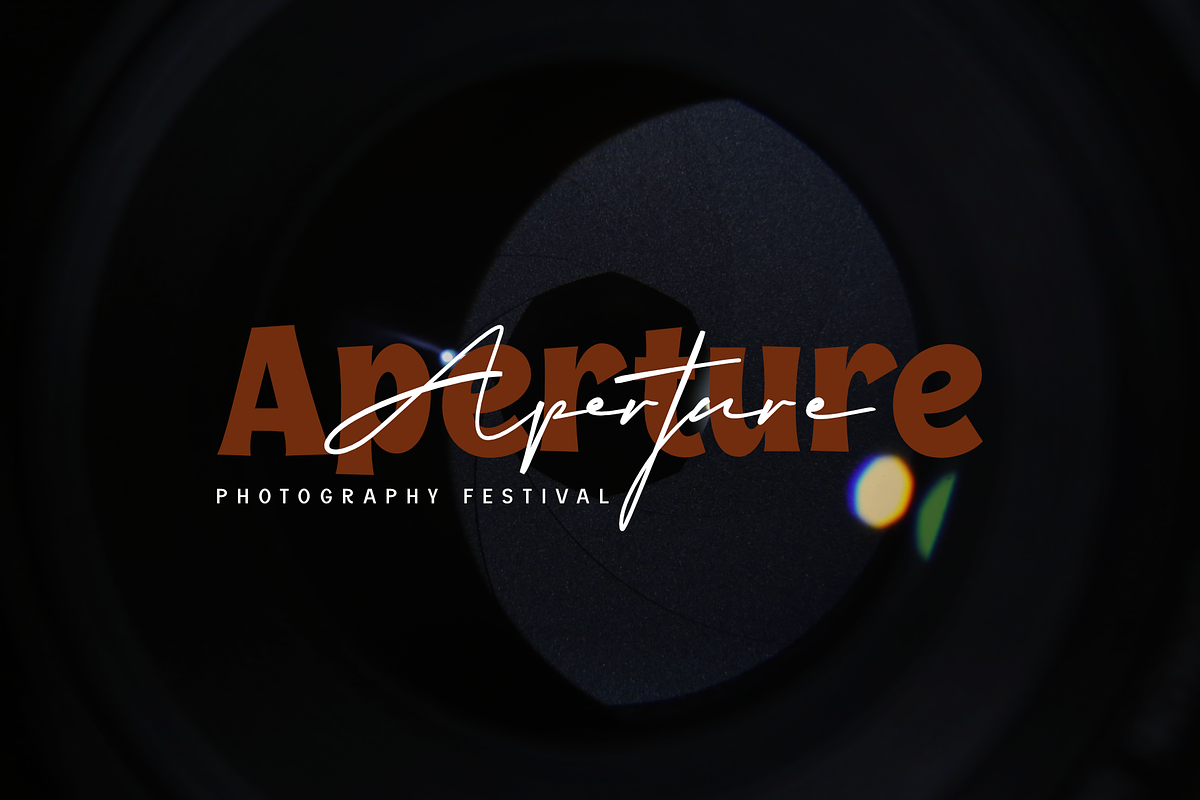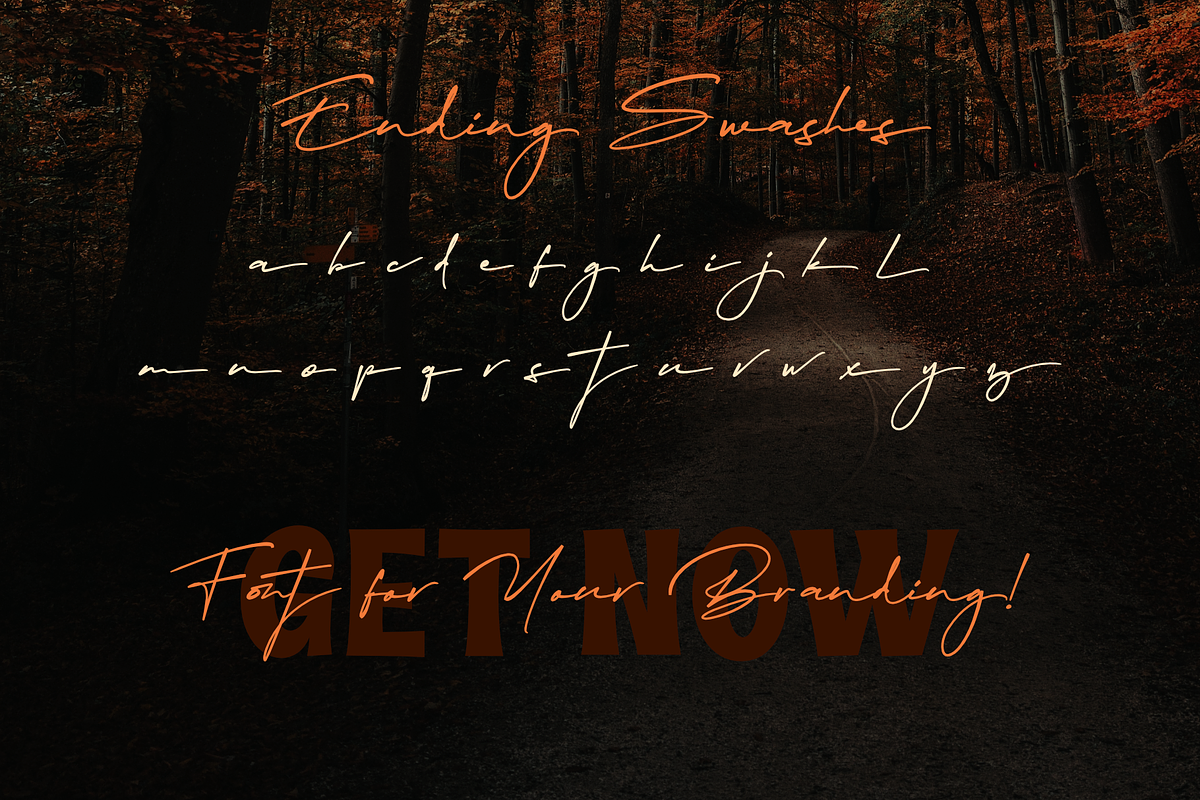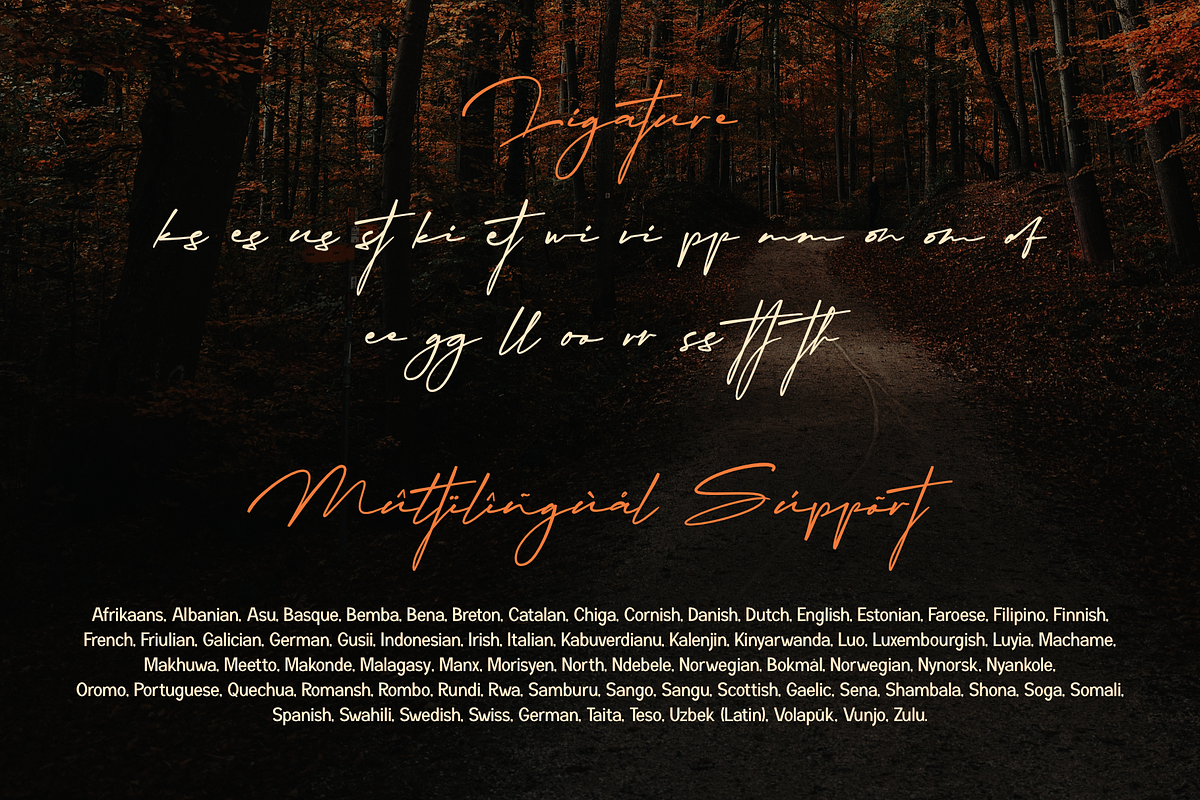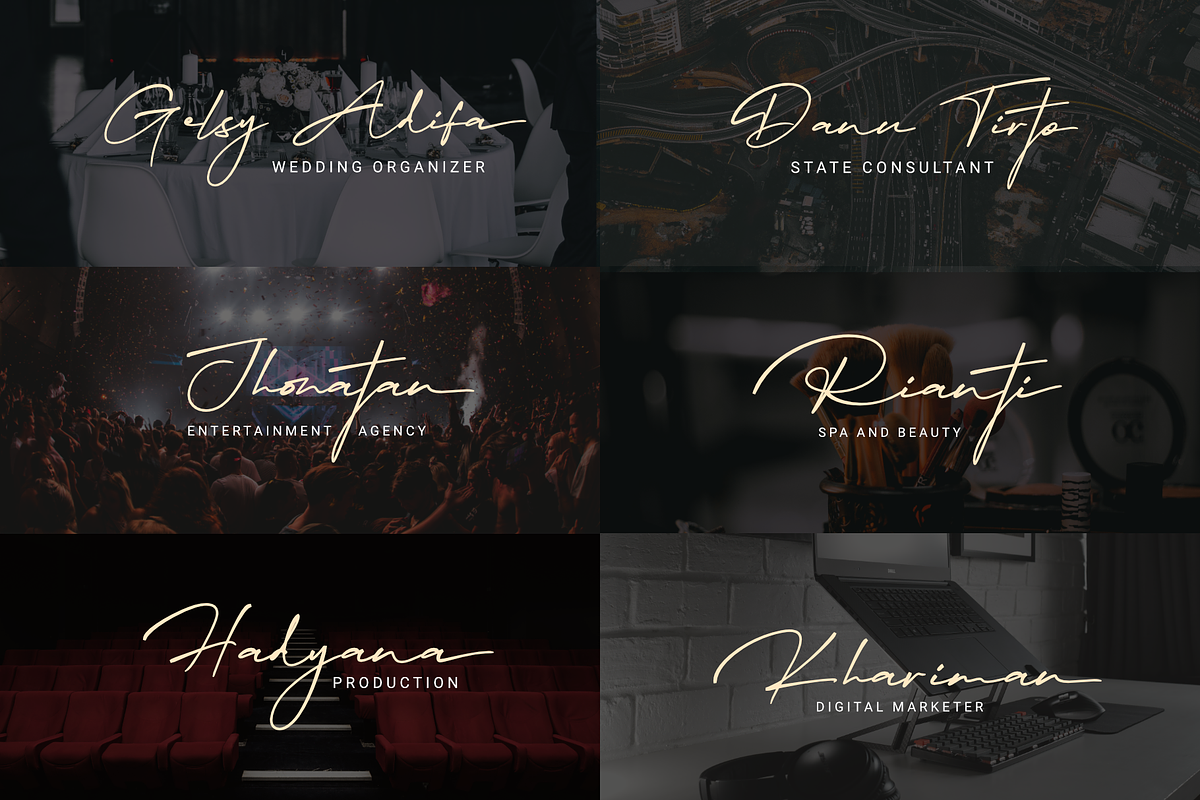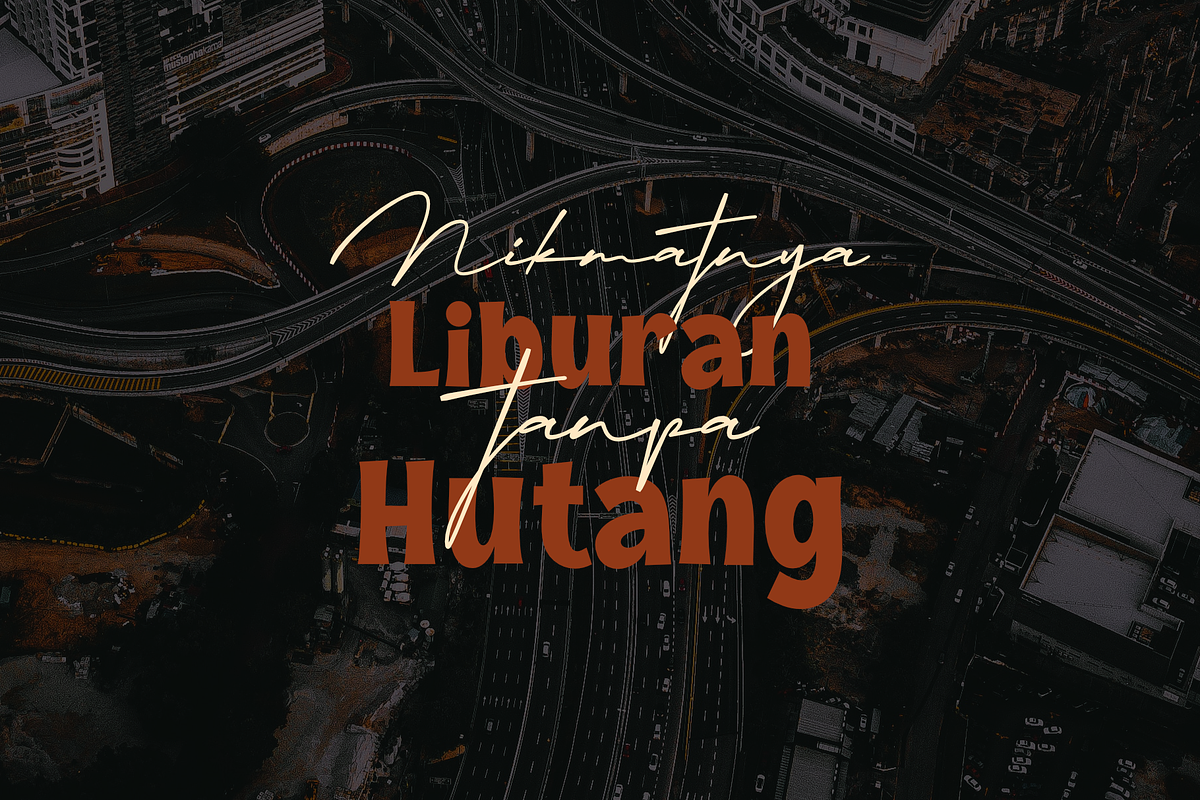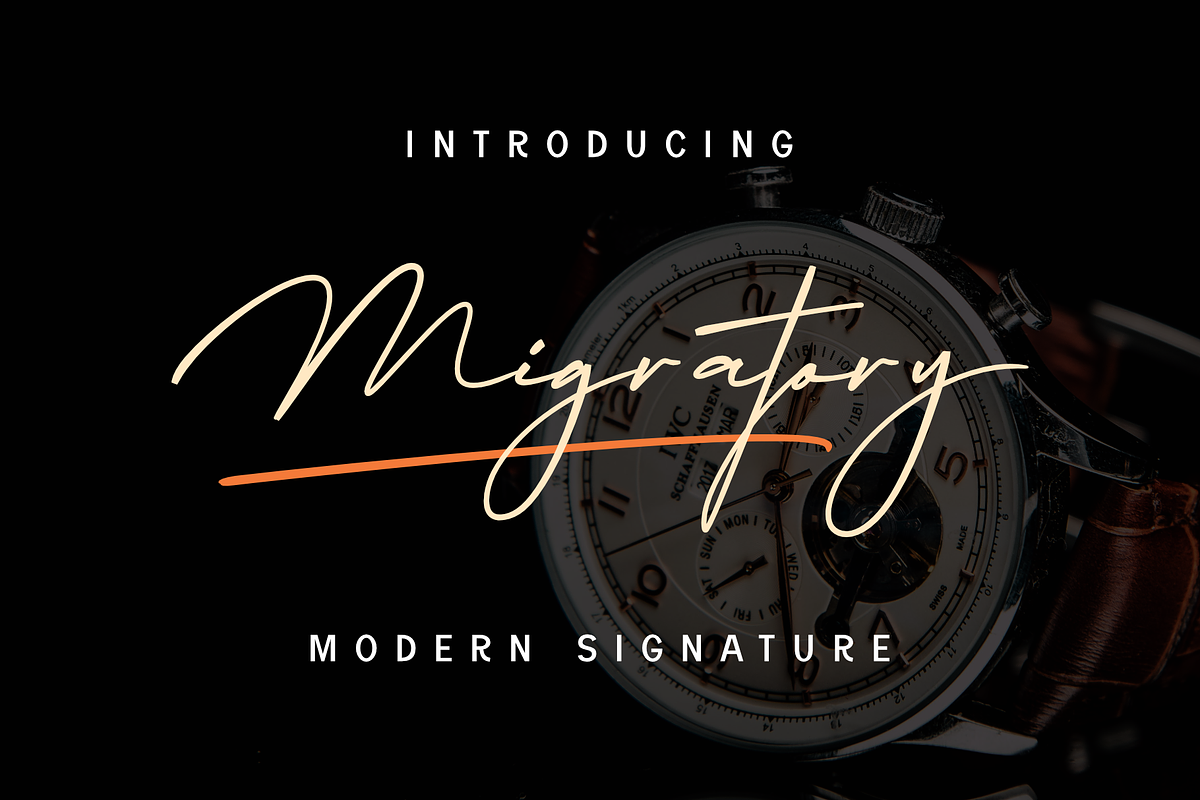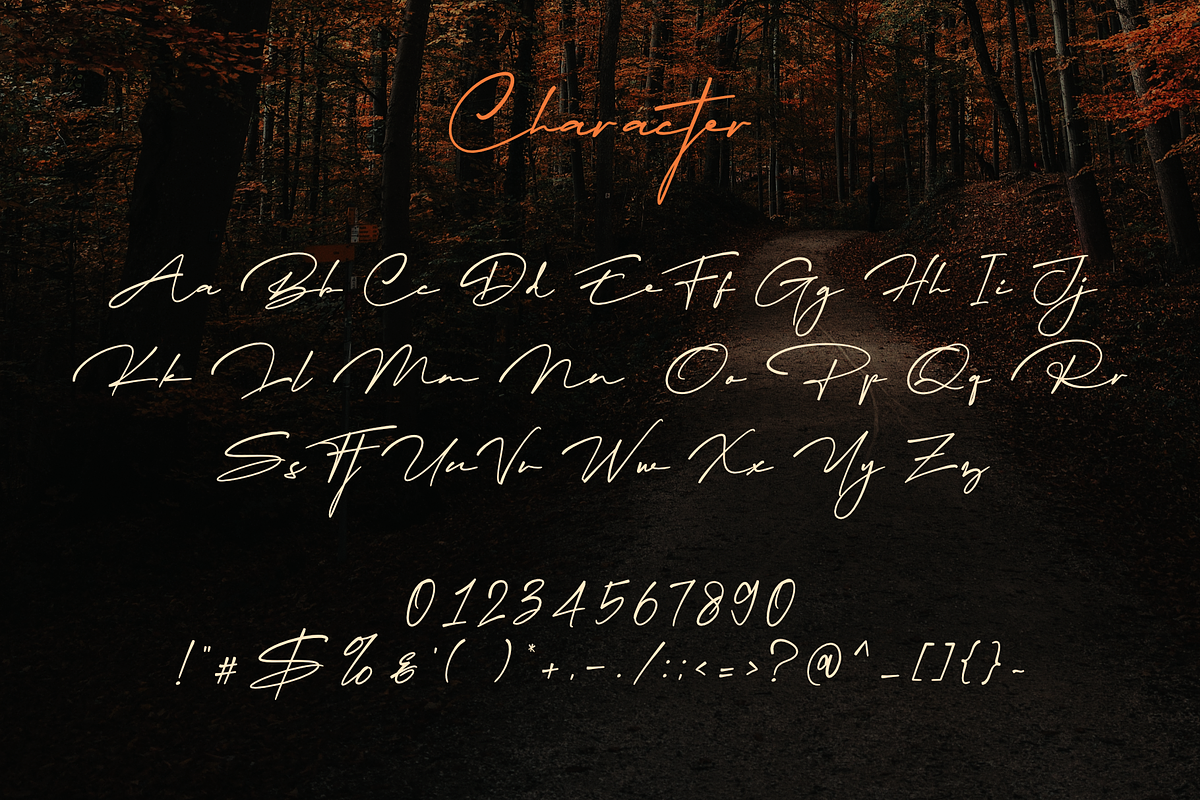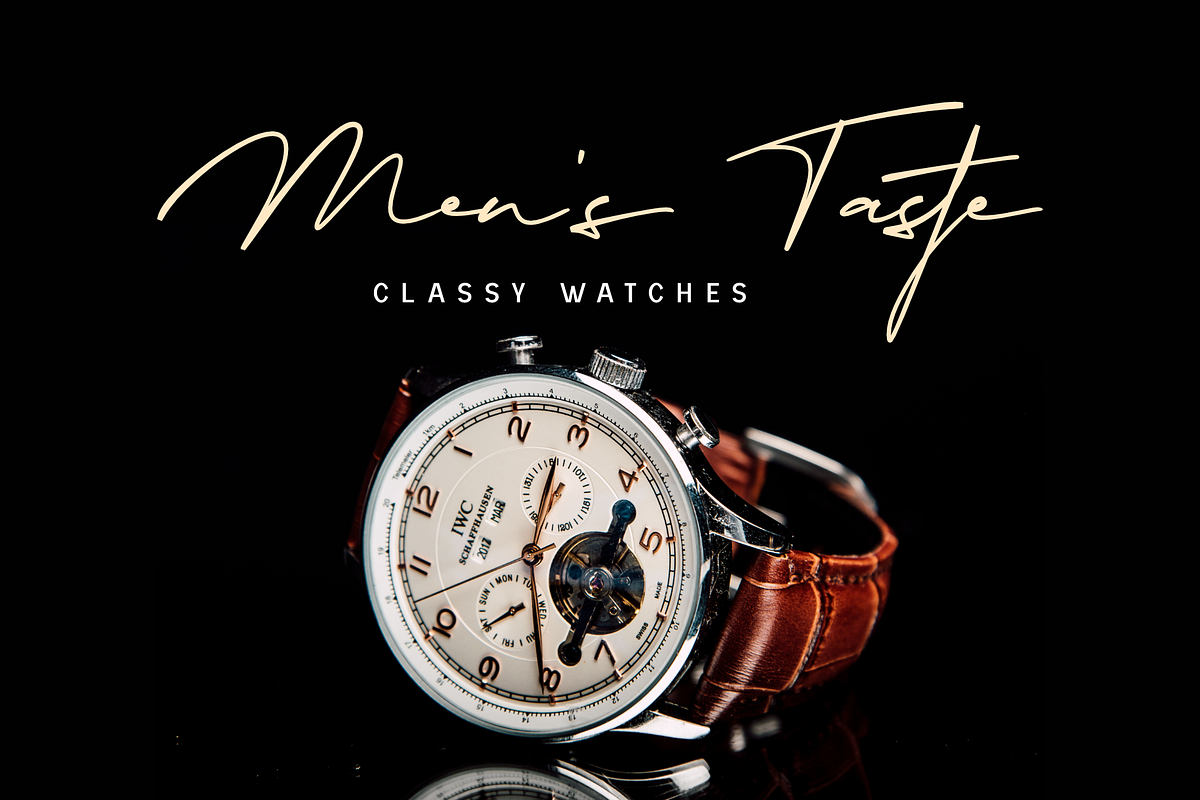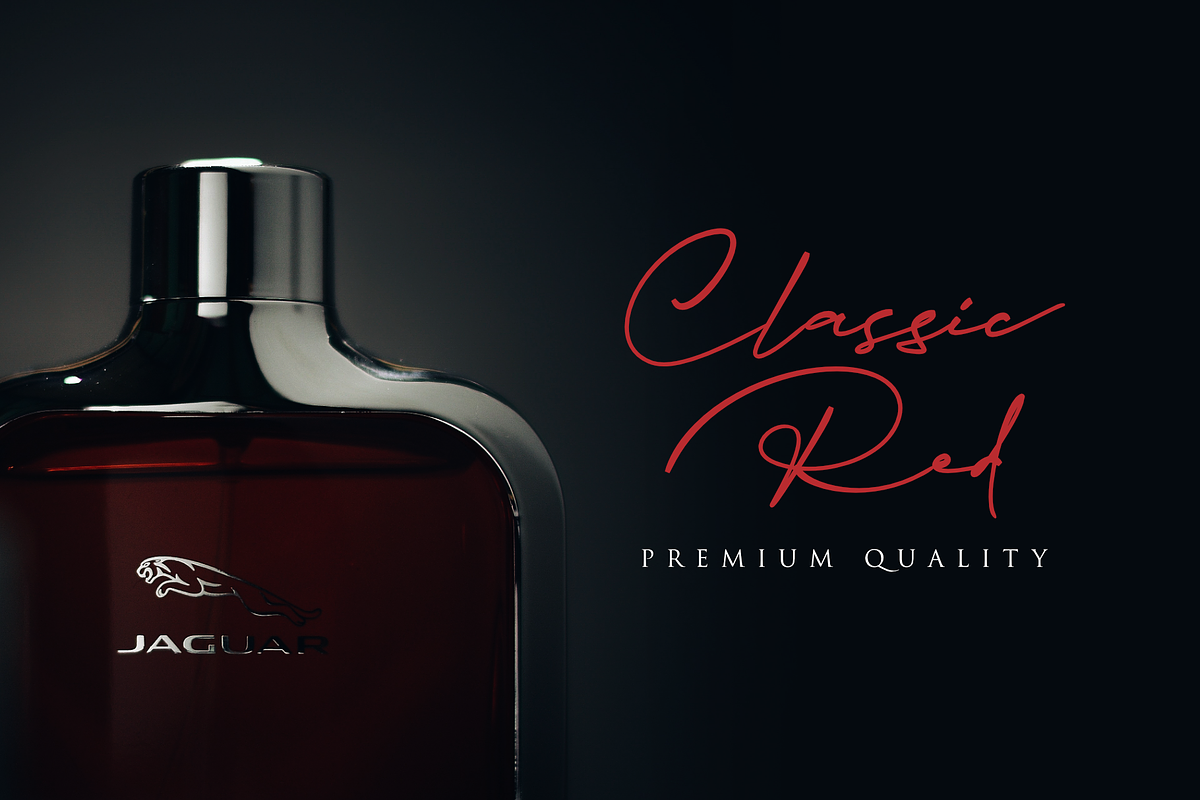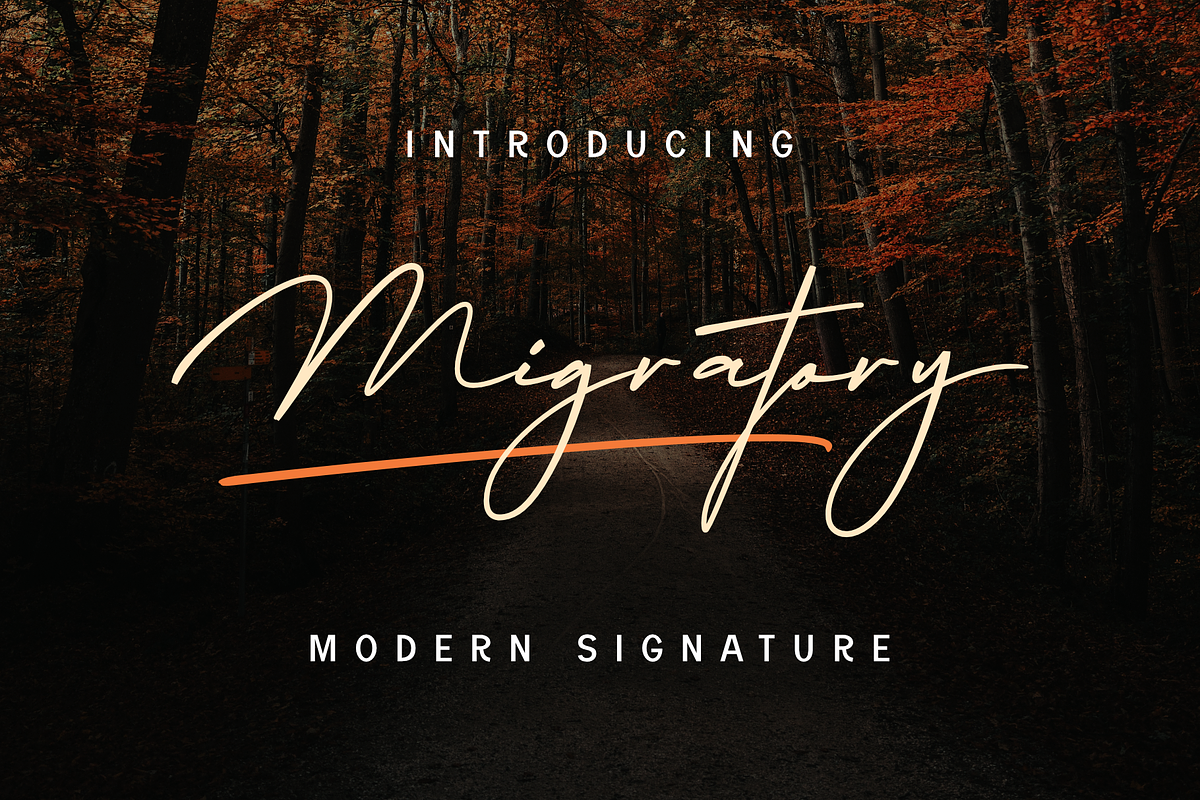
Migratory
Migratory is a classy modern handwritten font, with a casual and carefree style that looks as authentic as possible, still legible, and elegant in your projects.
Equipped with a ligature and swsh ending, it makes the nuances change naturally but doesn't change the elegant impression of your design project. even if it collaborates with other fonts such as Sans Serif or firm fonts it will look perfect like the preview above.
It is highly recommended to use it in elegant and high-quality design projects such as company Logo designs, Event Titles, Big brand advertisements, premium products, and other designs.
- Ending SWSH
- Multilingual Accent